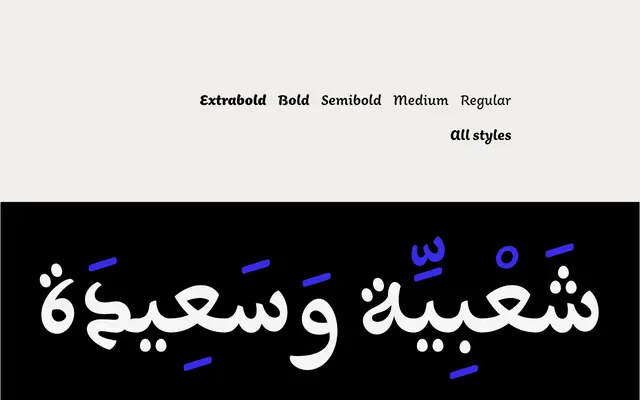
Aisha Arabic
Rosetta · Titus Nemeth · 2011
A Maghrebi-style Arabic typeface by Titus Nemeth, grounded in 19th-century Algerian and Moroccan lettering traditions and extended with variable swashes and extensive OpenType alternates.
Originating from Titus Nemeth's research into Maghrebi script traditions, the regular weight derives from antiquarian foundry type found in a 19th-century book, redrawn for contemporary use and extended to five weights with a companion Latin. Generous curves, expressive swashes that can cross word boundaries, and fourteen stylistic sets covering alternate letterforms specific to the Maghrebi manuscript tradition give designers a wide palette. The variable font implementation allows swash lengths to be tuned, making it suitable for editorial work, packaging and digital publishing across Arabic, Berber and multilingual Maghrebi contexts.
Aisha Arabic sits between text and display use, drawing on North African Maghrebi manuscript traditions with fluid, expressive letterforms and variable swashes that push it firmly into display territory.